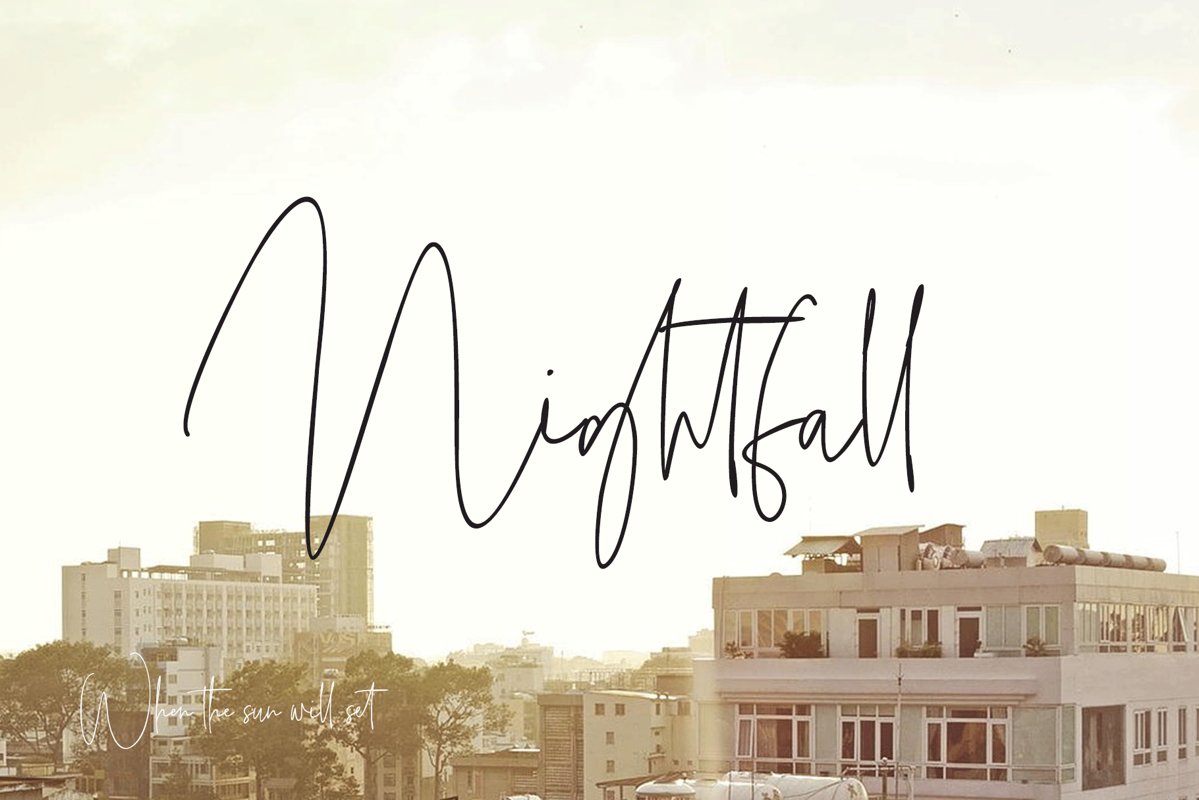
Nigthfall
Night Fall
Nigthfall a work that is purely a result of handwriting, has a natural characteristic. this is perfect for invitations, signatures, blogs, social media, business cards, product brands.
Nigthfall a work that is purely handwritten, has its own characteristics with the style of monoline It is perfect for invitations, signatures, blogs, social media, business cards, product brands, also equipped with 52 ligature.
Nigthfall